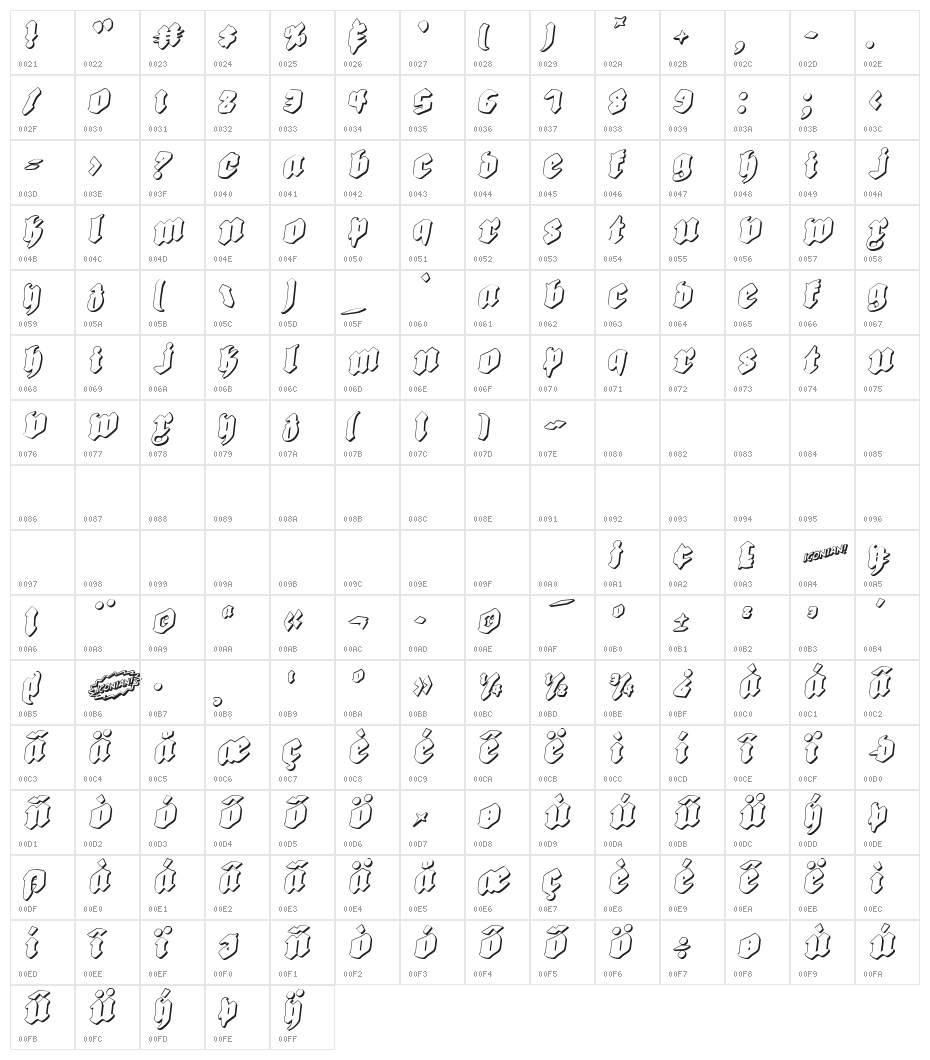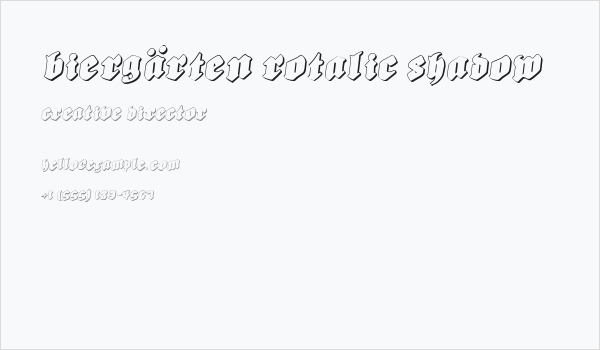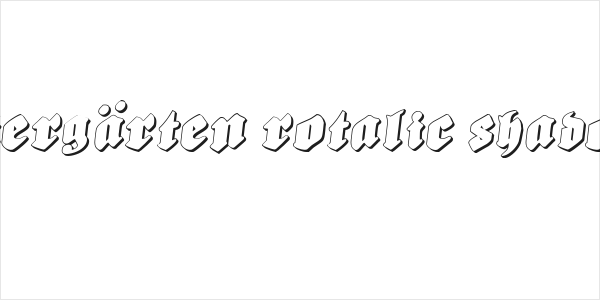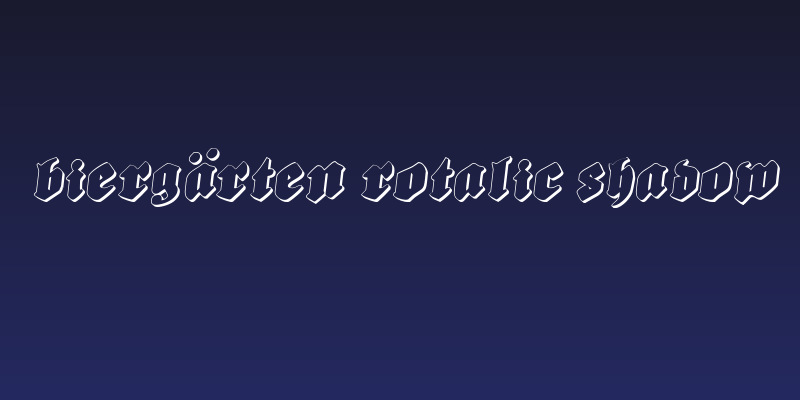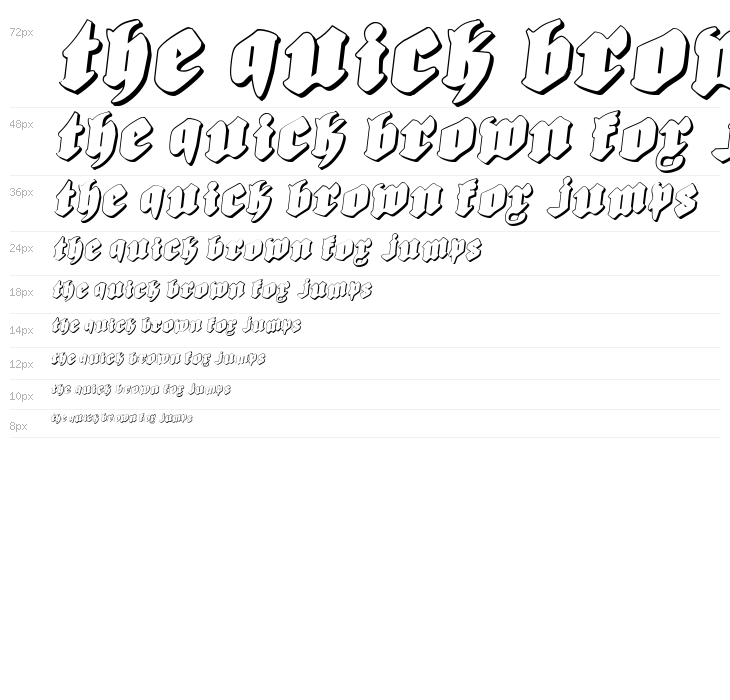
Biergärten Rotalic Shadow Font
Biergärten Rotalic Shadow Description
This font features a bold and dynamic style with a distinct shadow effect that adds depth and dimension to each character. The letters are designed with a strong, angular form, reminiscent of traditional blackletter styles, yet with a modern twist. The shadowing gives the font a three-dimensional appearance, making it stand out on any page. The uppercase and lowercase letters maintain a consistent style, with sharp edges and a slightly condensed form. The numerals and special characters are equally bold, ensuring uniformity across all text elements.